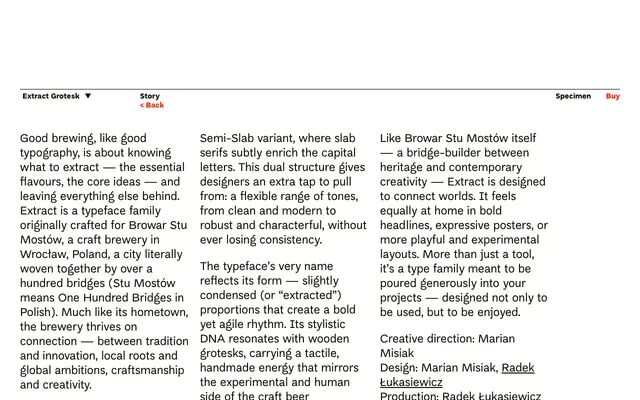
Extract Grotesk
Threedotstype · Marian Misiak, Radek Łukasiewicz
A slightly condensed grotesque with a matching semi-slab variant, originally commissioned for a Wrocław craft brewery and drawn from wooden type references.
Designed by Marian Misiak and Radek Łukasiewicz for Browar Stu Mostów, Extract pairs a clean condensed sans with a semi-slab version in which slab serifs appear selectively on capital letters. The slightly compressed proportions give it a bold, energetic rhythm suited to headlines and poster work, while the dual-family structure allows tonal shifts from modern and minimal to characterful and robust within a single coherent system. Its visual DNA draws from wooden grotesques, giving it a tactile quality that sits well in craft and independent brand contexts.
Described as a condensed grotesque with wooden type influence and a matching semi-slab variant; the core sans sits firmly in the grotesque tradition with a tactile, handmade quality.